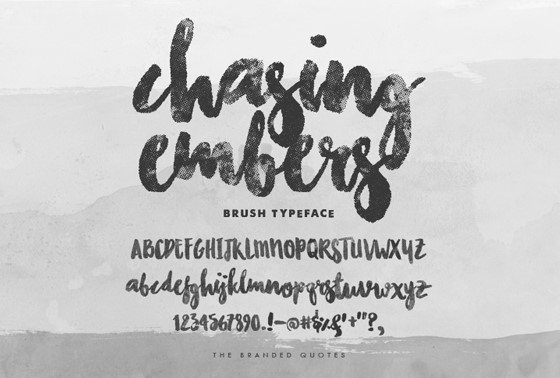
Graphic designers are constantly on the lookout for a good font that will complement their projects. That's why we're introducing the Chasing Embers Font, a stunning brush and handwritten typeface featuring beautiful and unique characters in both uppercase and lowercase sets.
The font has lots of alternatives like beauty and the beasts and shorelines typeface that looks similar to this and you can use this font with the combination of mixup with these fonts to make your projects awesome and stylish as compare to others. You can take part in graphic designing competition easily when you are experience by using the font at the correct place.
NameChasing Embers Font
Style Brush
Designer The Branded Quotes
This brush and handwritten characters typeface which has a popular texture so that can also be used in pairing also. That’s why each designer treated it as a really perfect font in all appreciate.
• Books
• Theme design (WordPress, Shopify, etc.)
• Tutorial videos
• Stadium branding
• Public transportation navigation
• Annual reports
What Type of Font Is Chasing Embers?
The Chasing Embers Font is the famous and amazing brushed tyepface that was designed by The Branded Quotes.